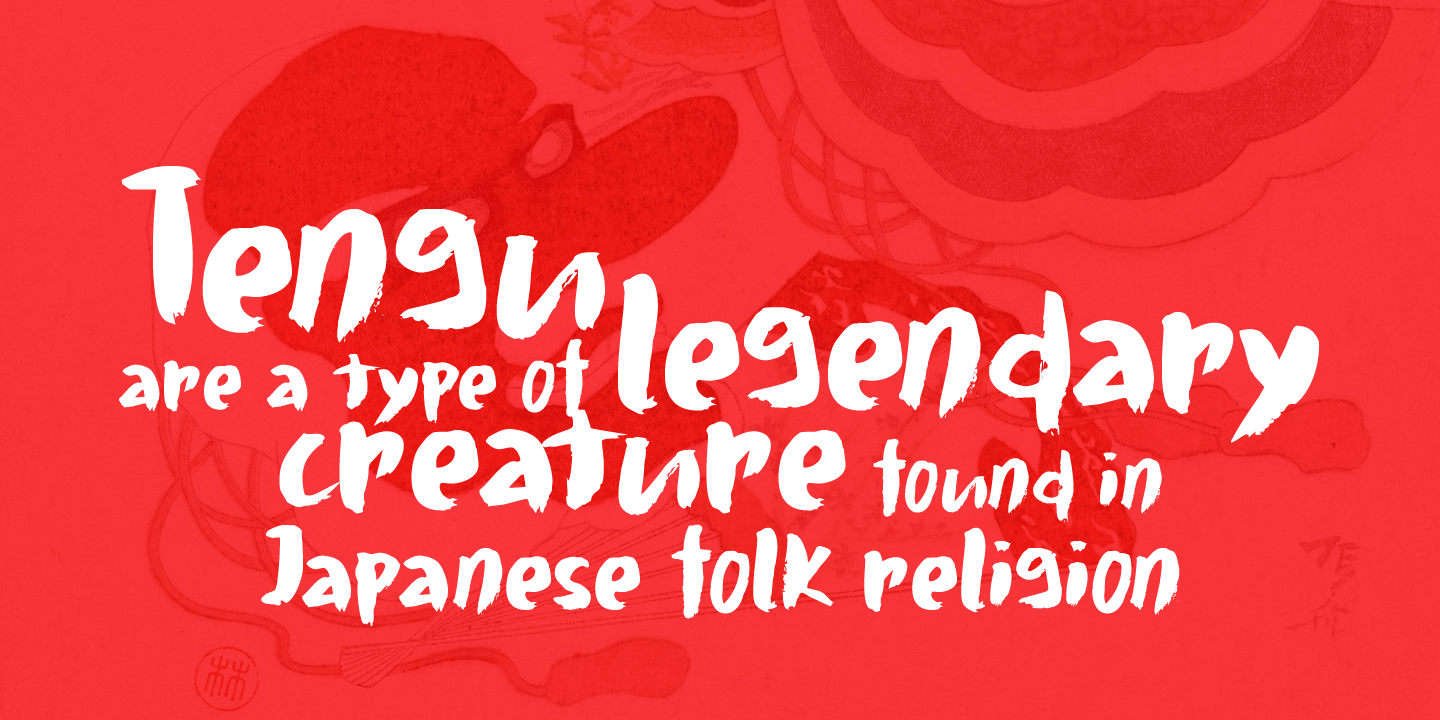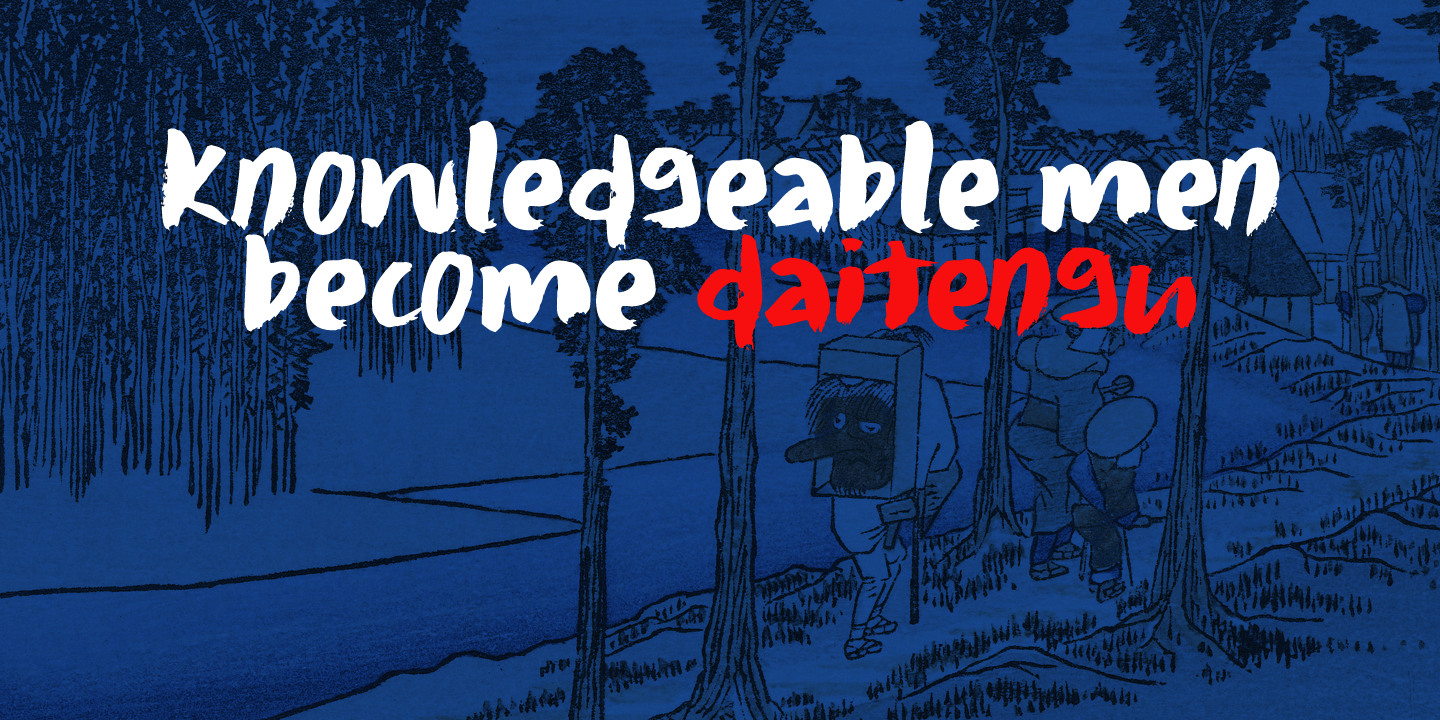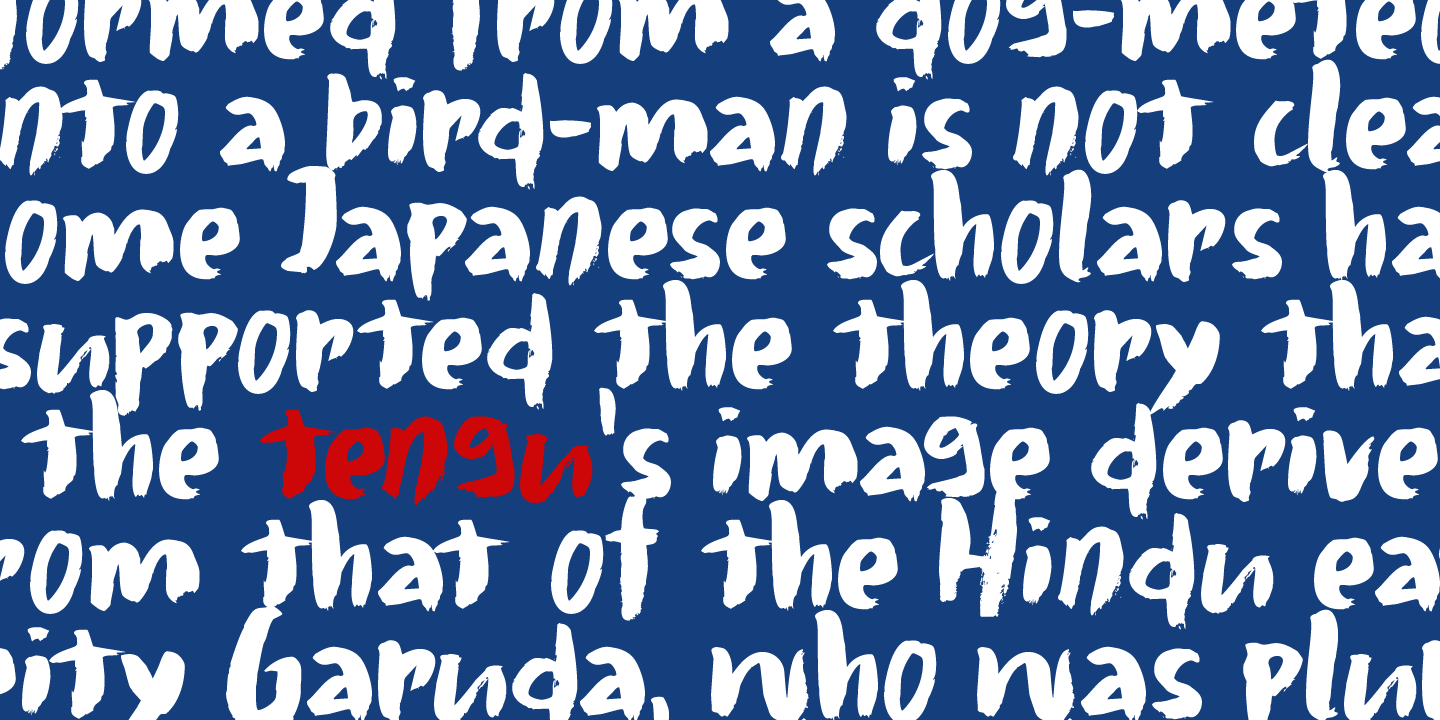
About Daitengu
I have always been fascinated by Tengu – a mythical creature from Japan. Tengu are usually depicted with a red face, a very long nose, white moustaches and a funny hat. They used to be regarded as harbingers of war, but over the centuries, their image…